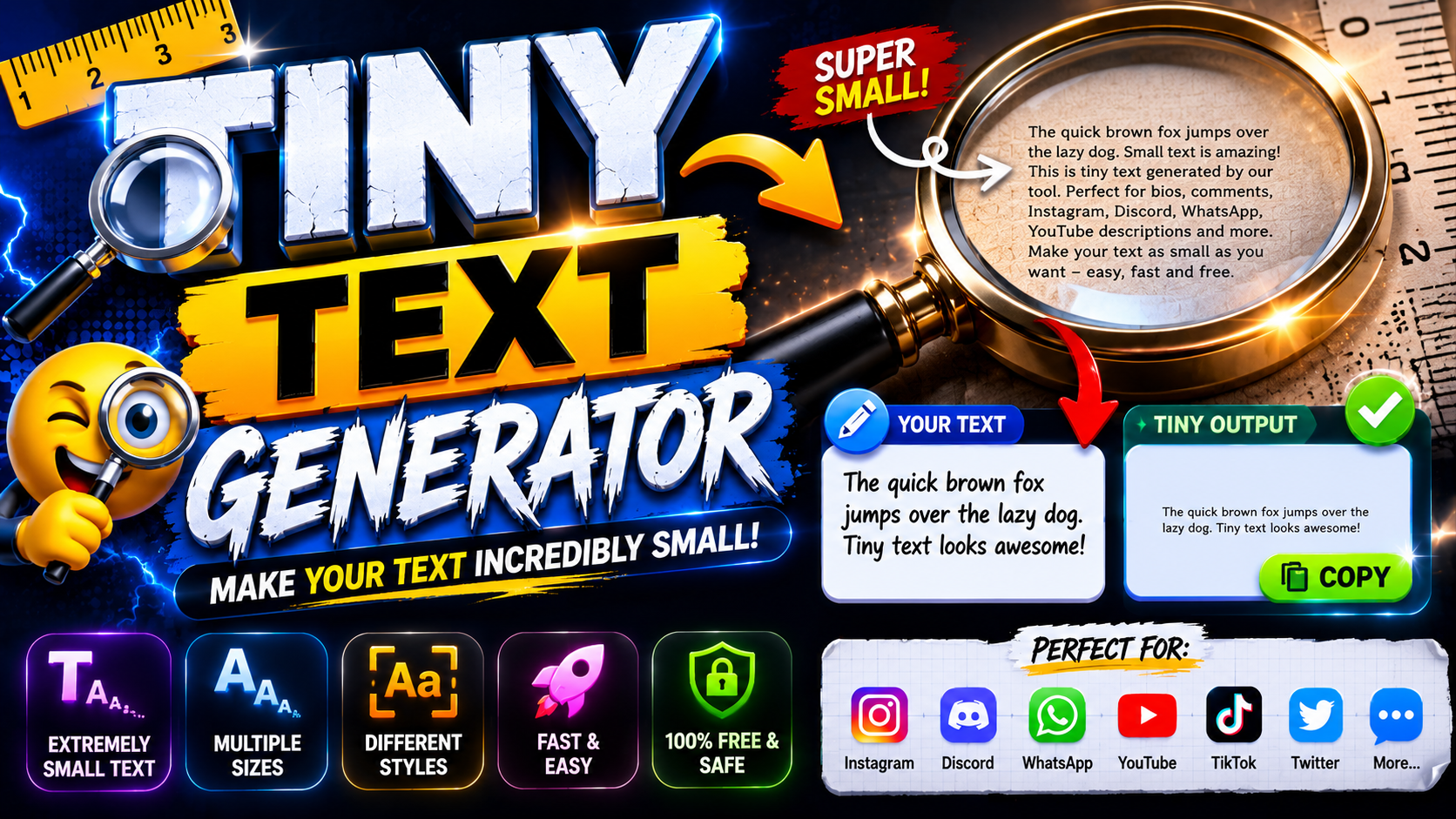
Tiny Text Generator
Convert your standard text into small caps, superscript, or subscript instantly.
Manipulating digital layouts taught me that standard systems break under creative pressure. We misuse Unicode characters to bypass platform restrictions, forcing human readable text into unexpected spaces like an Instagram bio for pure stylistic subversion.
In my experience, escaping rigid academic requirements always demands strategic compromises. Designers don’t just copy and paste random symbols; they deliberately reshape visual formatting rules to generate tiny text that alters human reader perception entirely.
What is a Tiny / Small Text Generator?
As a digital artist, I treat an online generator not as software, but as a gateway redefining constraints. This system maps standard input into intricate miniature text via Unicode, treating each style option like art.
Forget boring fonts; leveraging mathematical superscripts crafts a typographically refined digital presence. My execution bypasses traditional boundaries, utilizing these specific blocks to forge a distinctive identity that standard layouts cannot replicate in our modern spaces.
Types of Small / Tiny Text (Unicode Alphabets)
Digital architecture hides alternative Unicode dimensions. We bypass normal constraints using specific characters to alter structural style. Deploying mathematical scripts changes visual hierarchy, lowering elements below the standard baseline to subvert modern platform designs completely.
My experience manipulating this miniature alphabet proves that customized tiny text generates an unexpected, highly sophisticated layout. Instead of loud shouting, these distinct mini letters cultivate a quiet, mysterious aesthetic that transforms ordinary user engagement.
Small Caps
Achieving a distinct visual effect requires discarding standard layouts entirely. My typographic architecture often leverages small caps across alternative platforms. This practice seamlessly converts basic strings, bypasses conventional design constraints, and introduces entirely unique fonts.
Deploying these miniature versions scales user engagement without heavy interface bloat. Real testing shows font options yield instant results across headers. Embracing a simple interface allows clean, stylish customization while maintaining an unexpected, rich variety.
Superscript
My experience proves that choosing superscript text elevates digital design instantly. When mapping complex footnotes or architectural references, positioning characters high ensures critical data satisfies strict academic requirements while maintaining a highly unique visual effect.
We ignore standard constraints to apply superscript elements into modern captions. This advanced formatting approach serves a specific need within creative digital art, bypassing regular layout limitations to elegantly fulfill complex typography formatting requirements seamlessly.
Subscript
Digital designers realize that a lowered subscript alters visual hierarchy. This unique layout choice functions because Unicode characters bypass standard boundaries on social media networks, letting profiles generate unexpected audience engagement across various applications seamlessly.
Enforcing no word limit allows professionals to convert basic text strings manually. This free online tool methodology optimizes your Instagram bio directly, embedding dropped microscopic lettering that scales perfectly without requiring complex software installation procedures.
Tiny Text
Deploying small text styles shifts how users process digital layout space. My practice proves that using a small text generator bypasses dense text blocks, allowing precise typography to sit cleanly within narrow browser frames.
These tiny letters alter content visual architecture instantly without altering code files. Choosing a small font generator helps maximize localized data density, keeping UI experiments readable yet structurally minimalist across diverse viewports.
Bold Text
Integrating small text fonts within layout blocks highlights specific structural anchors. Evaluated from a psychological standpoint, balancing heavy focal points against a functional small text font layout forces immediate, intuitive user interaction.
To browse or test formatting parameters requires minimal effort when setting up system interfaces. Finding the perfect typographic contrast ensures that even micro-copy captures user focus without disrupting global design aesthetics.
Bubble Text
Isolating core functional blocks allows modern social media posts to disrupt linear feed flows. Utilizing unexpected visual spacing across channels like Facebook, Twitter, or Discord subverts standard flat design expectations.
For platforms like Pinterest or Tumblr, distinct character choices let personal profiles stand out. Crafting highly customized, unique layouts ensures digital identities remain memorable within highly competitive online creative spaces.
Why Can I Copy and Paste Tiny Text?
From my backend engineering experience, systems natively render these distinct characters because modern platforms rely on smart technology specifications. Since everything remains fully Unicode supported, the tiny text is completely copy-pasteable wherever you paste